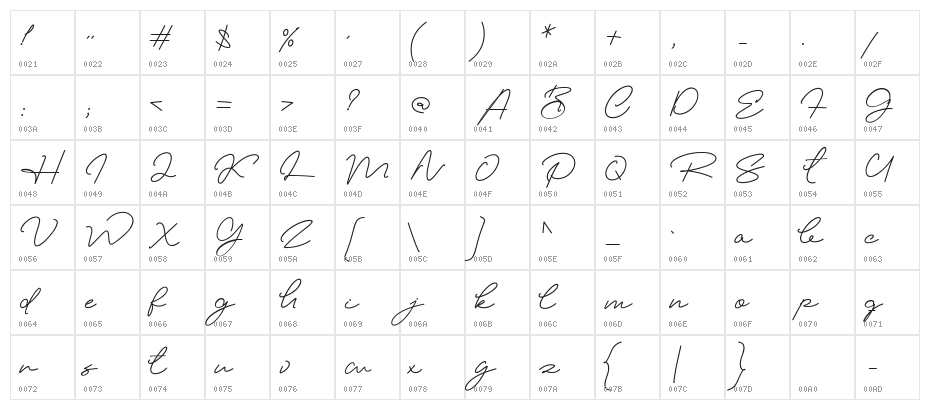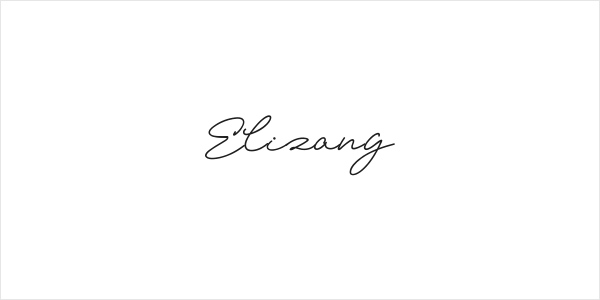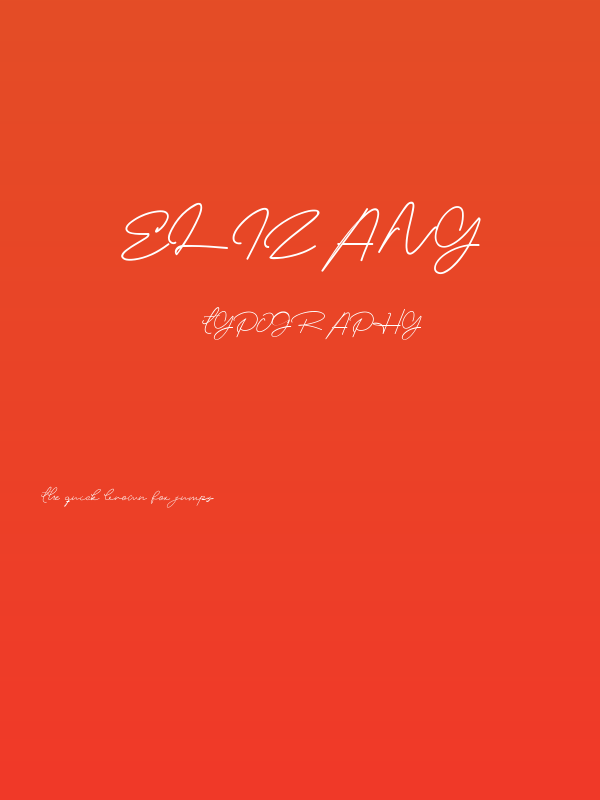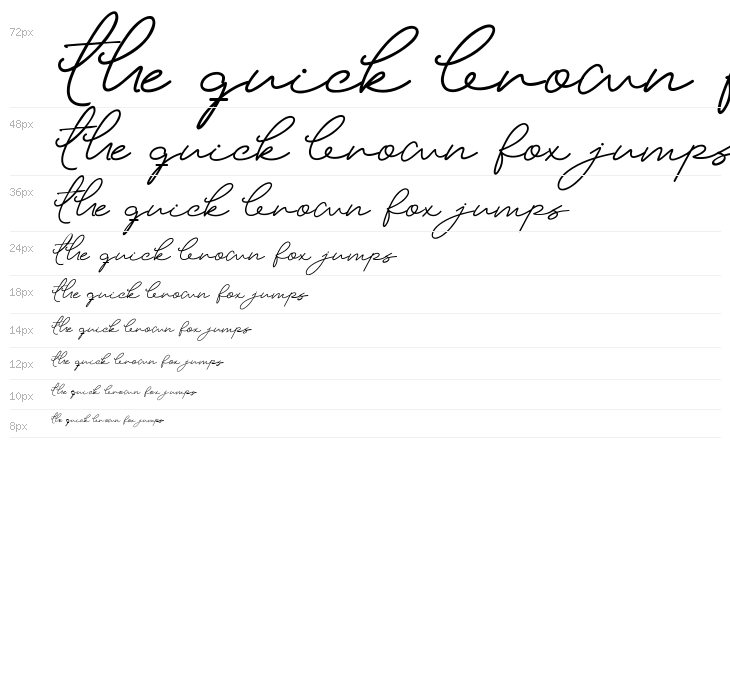
Elizany Font
Elizany Description
This elegant script font features fluid, connected strokes that mimic the natural flow of handwriting. The uppercase letters are slightly more structured, while the lowercase letters exhibit a graceful, flowing style. The characters are slightly slanted, adding to the cursive effect, and the overall appearance is both sophisticated and approachable. The font includes a full set of uppercase and lowercase letters, numbers, and a variety of special characters, making it versatile for various design needs. The strokes are consistent in width, providing a uniform look that enhances readability while maintaining an artistic flair.
| Use Case | Logos, Invitations, Personal Correspondence |
| Proposed Projects | Ideal for wedding invitations, greeting cards, branding, and personal stationery. |